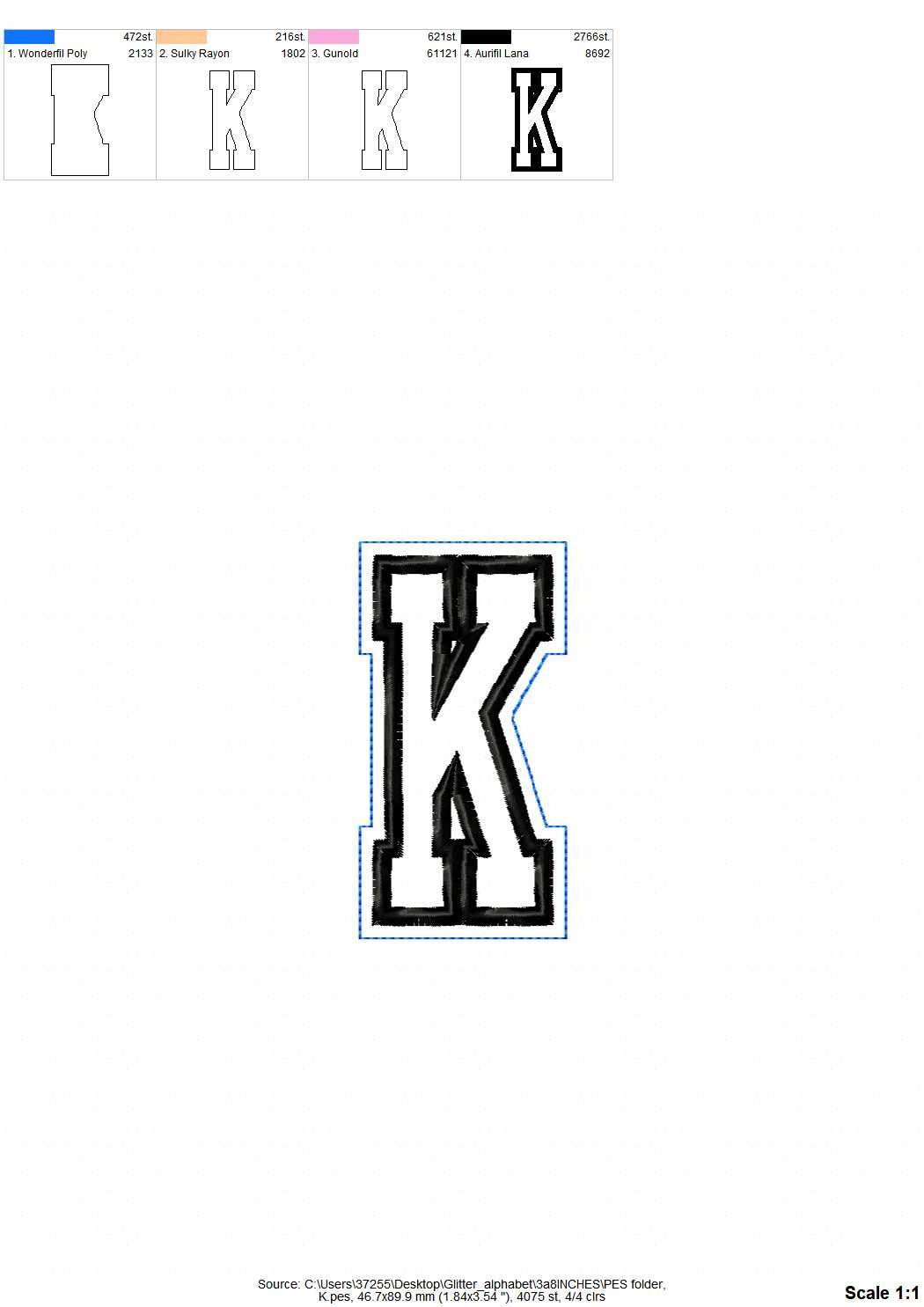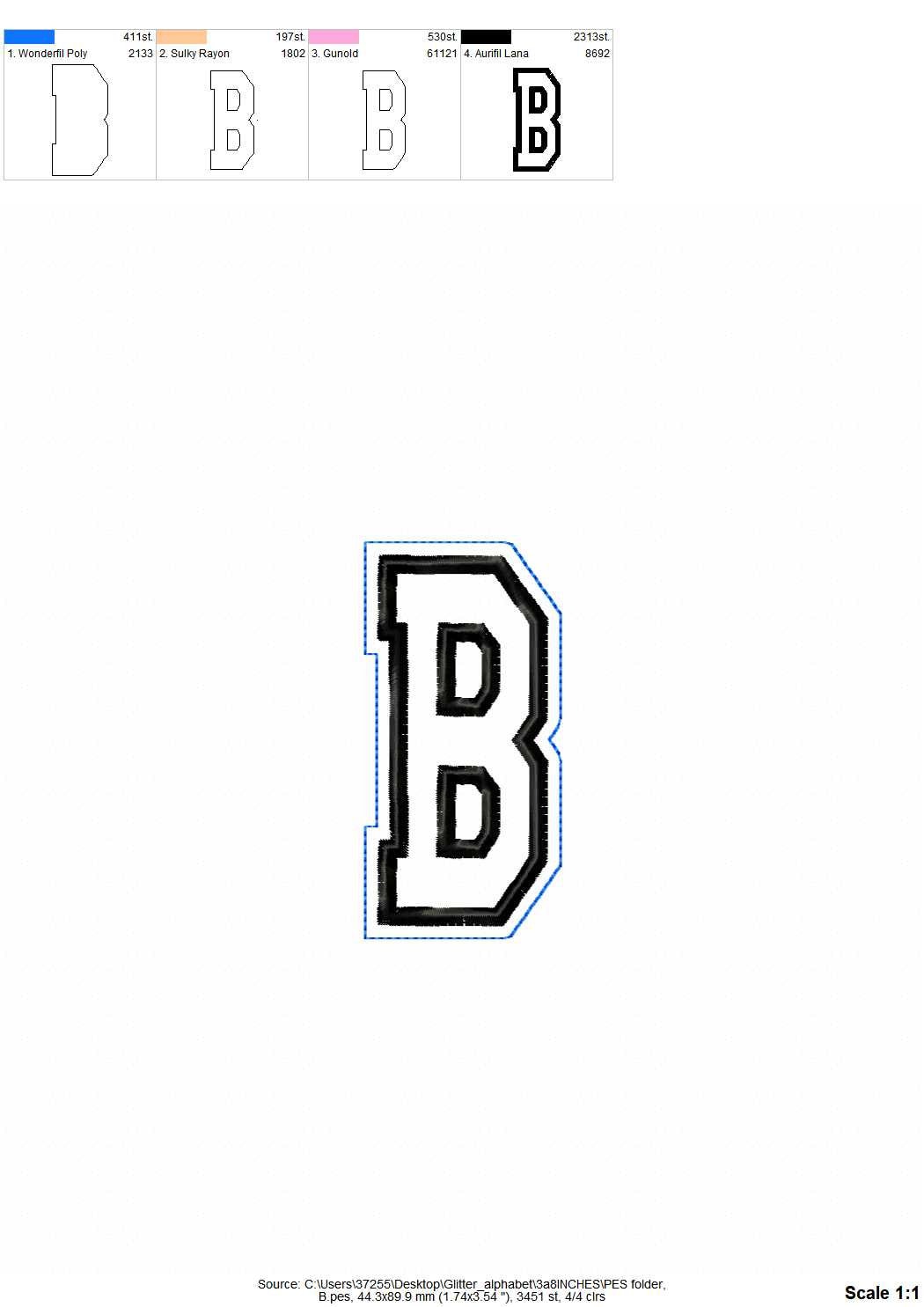
Glitter vinyl narrow Double two applique Athletic Sport High School Team Players embroidery alphabet BX embroidery font terry & glitter
This alphabet is perfect to make terry and glitter letters
Tow applique layers (Double outline sport font)